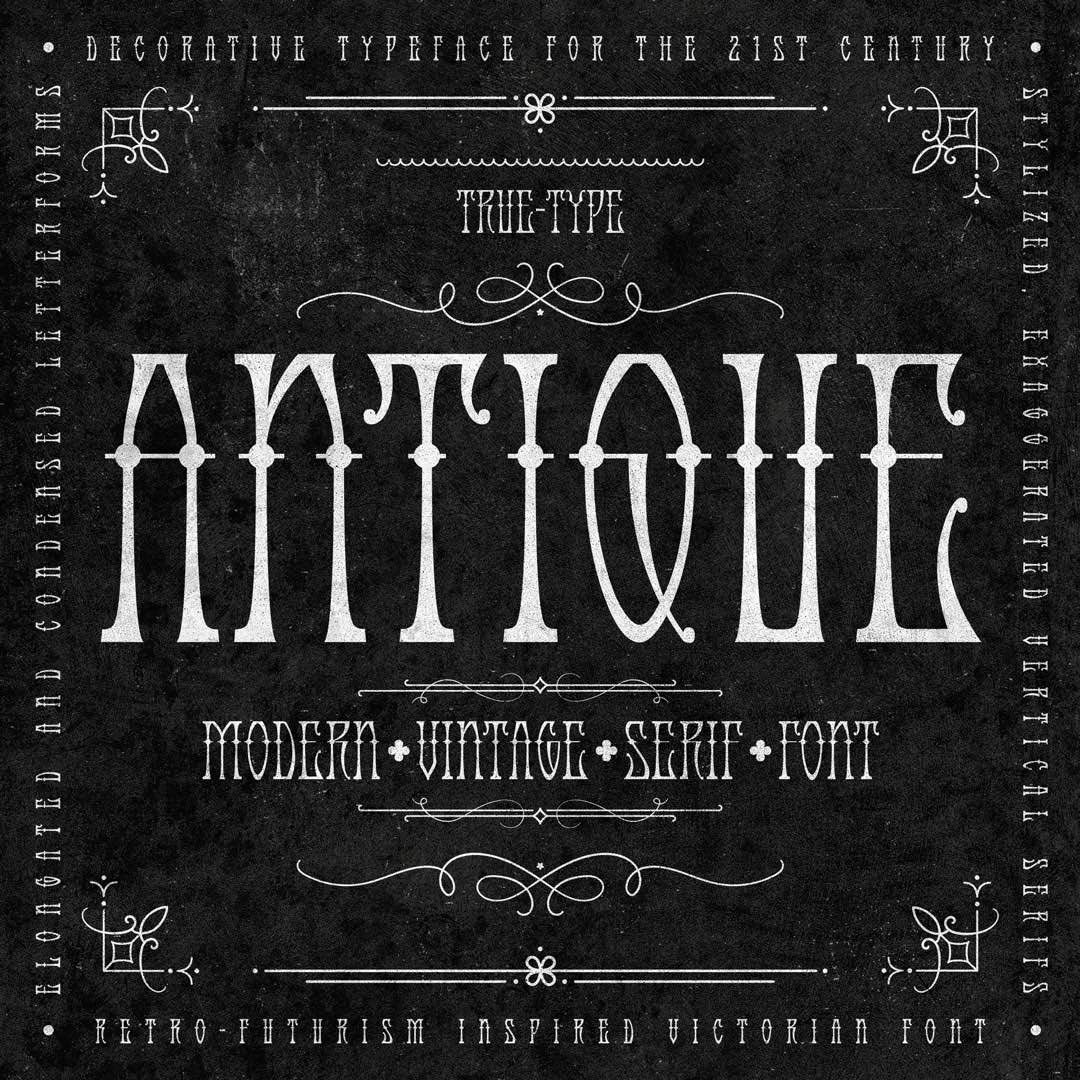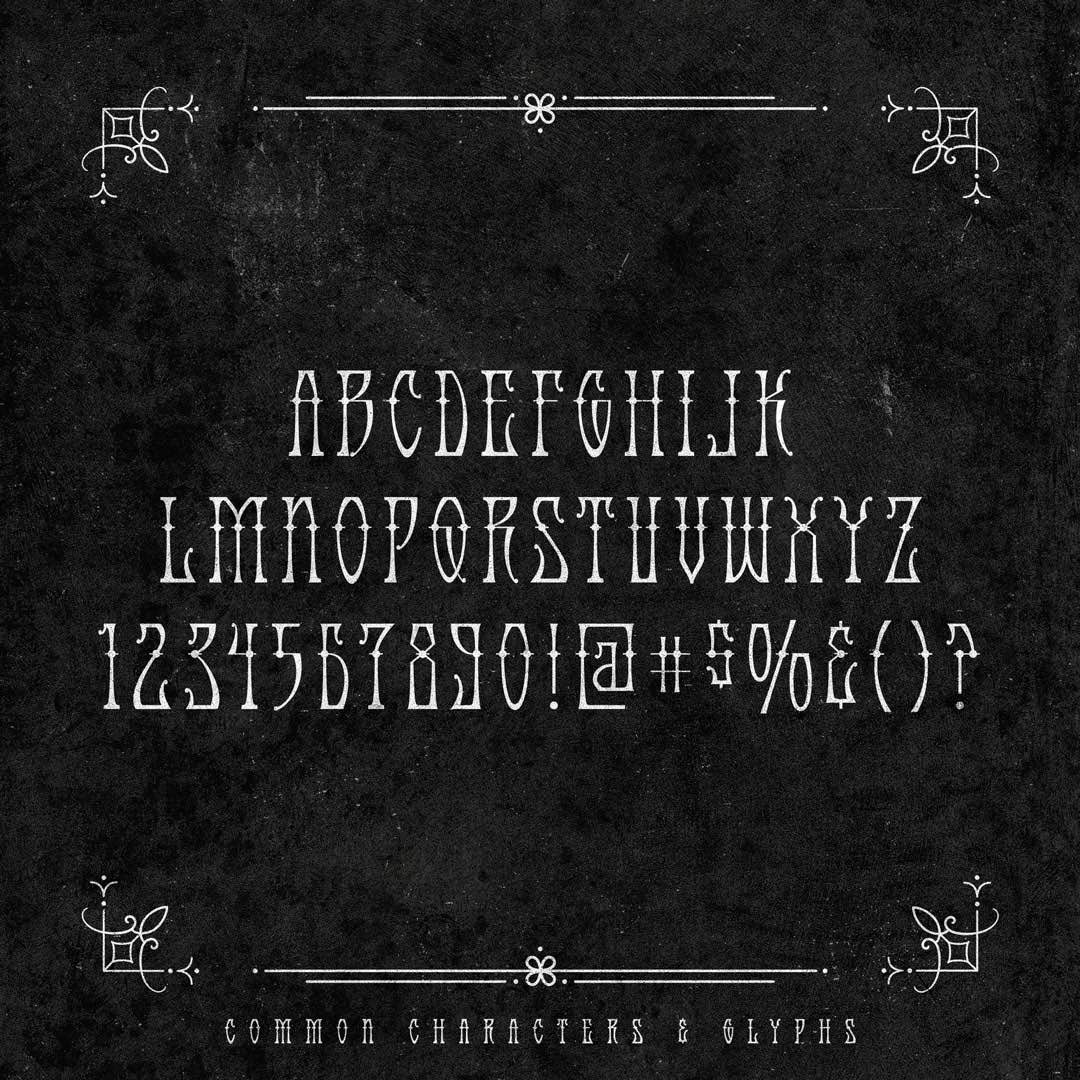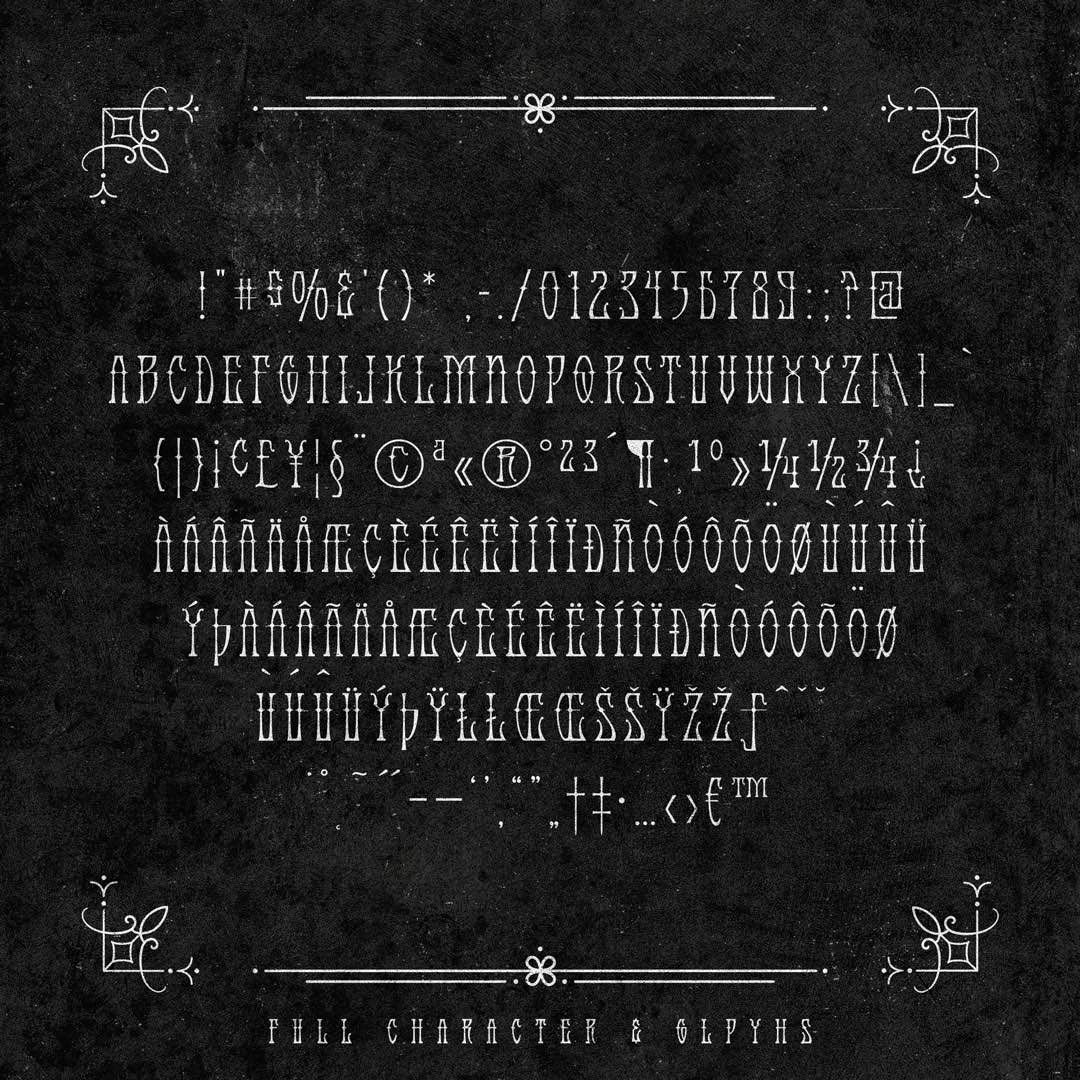
Antique is what happens when a haunted typewriter crashes a masquerade ball. Bold, narrow, and dressed in ornamental hardware, this typeface feels part Victorian relic, part mechanical séance. Every letter carries weight, not just in stroke, but in story. Use it for branding that leans strange, ceremonial, or sinister. Think apothecary labels, arcane posters, cursed manuscripts, or anything that looks better slightly possessed. BONUS: Flourishes included.